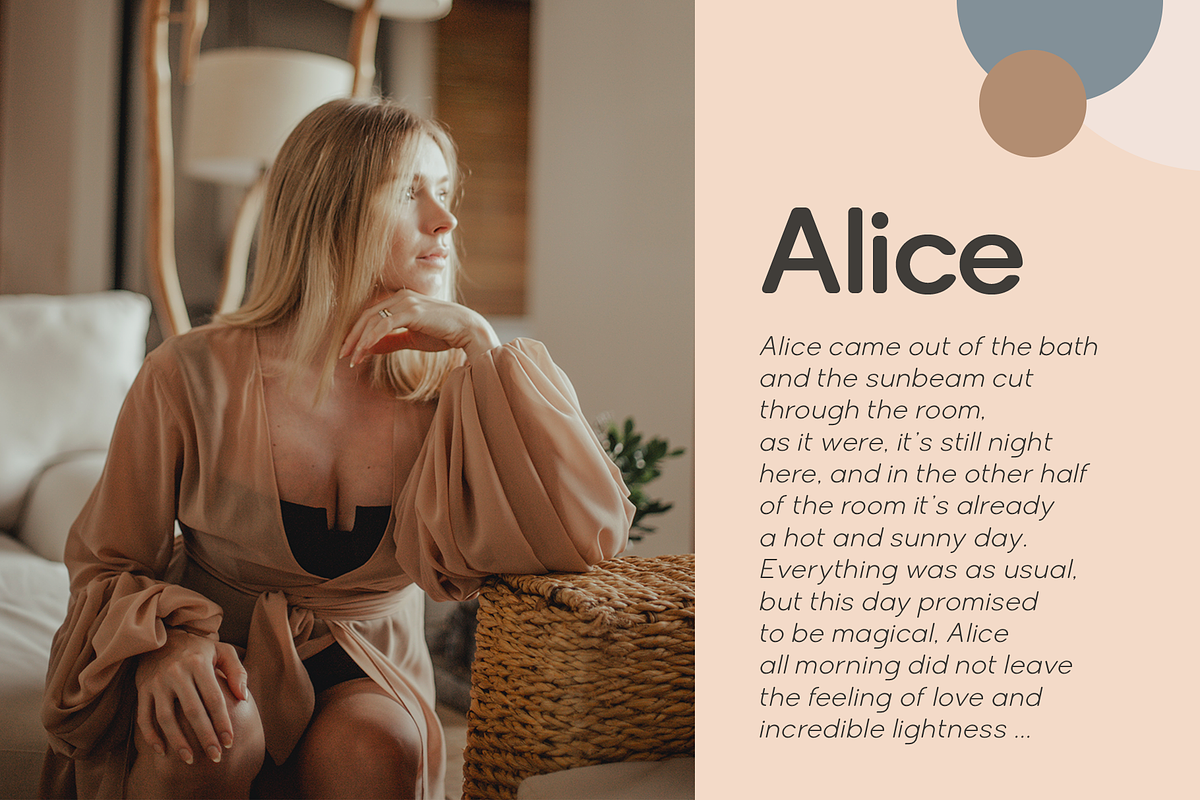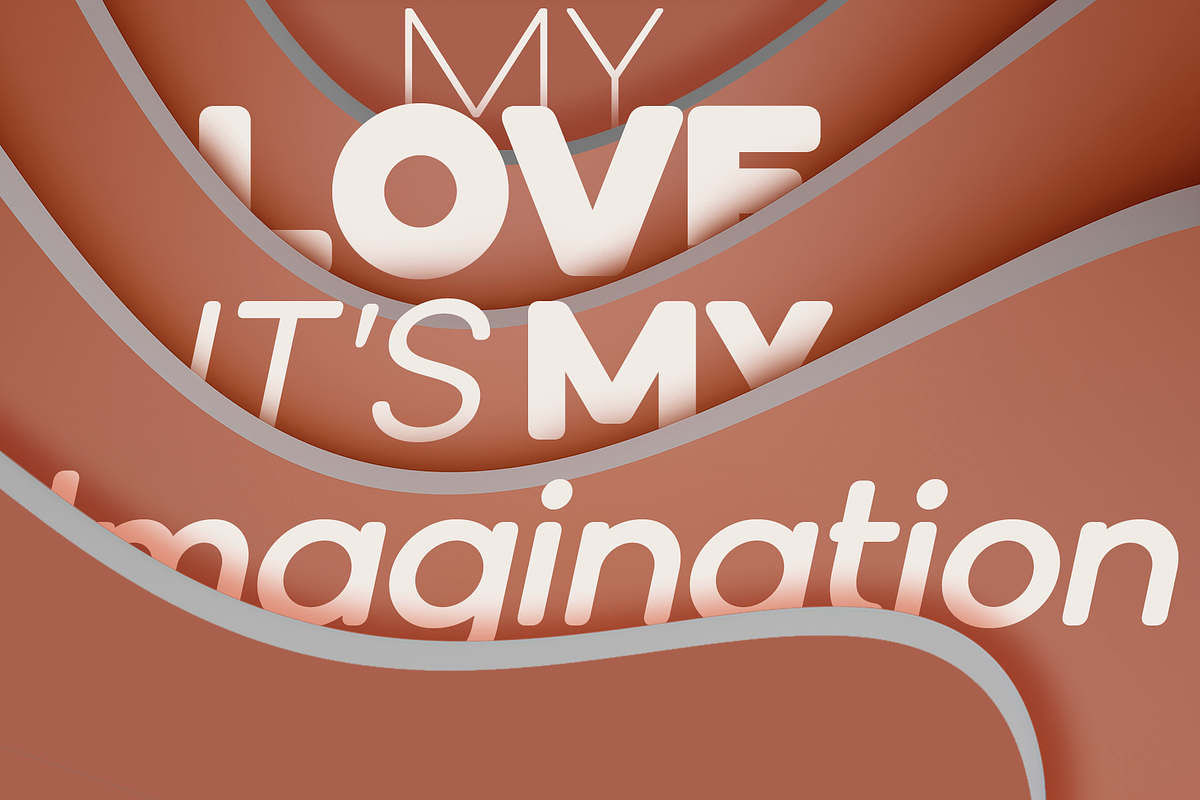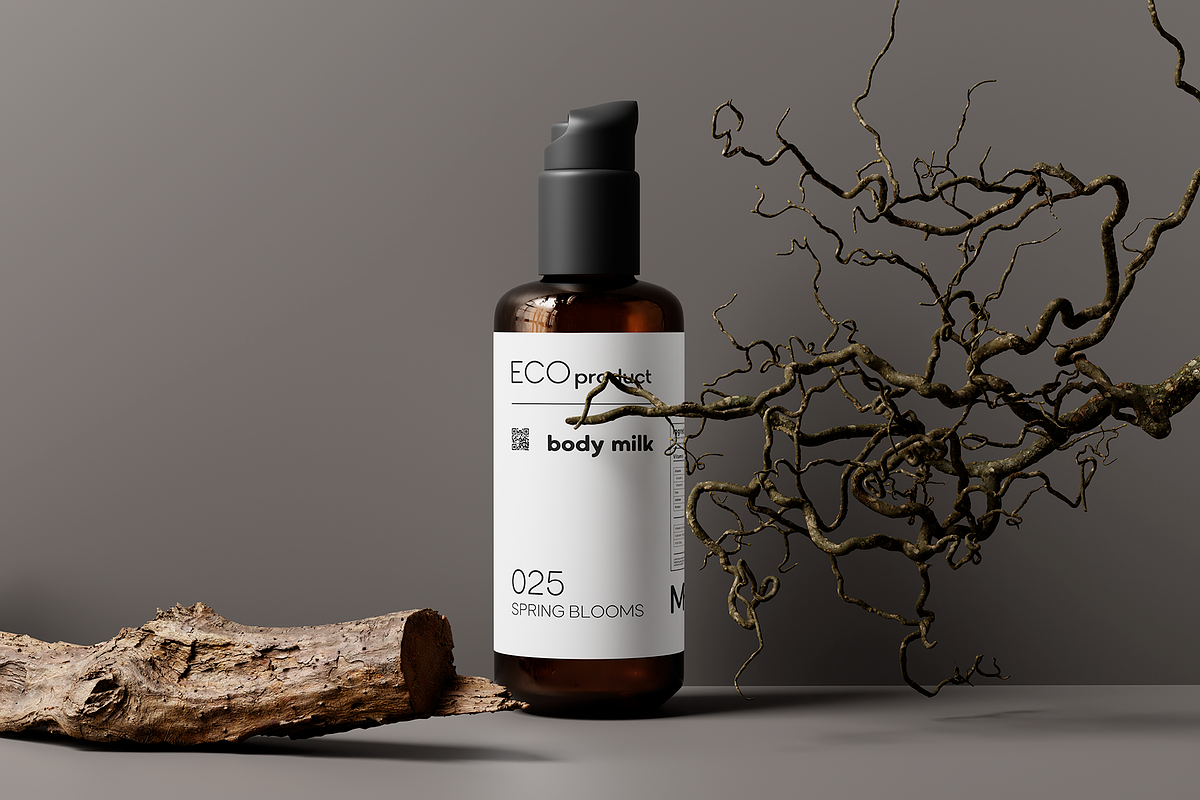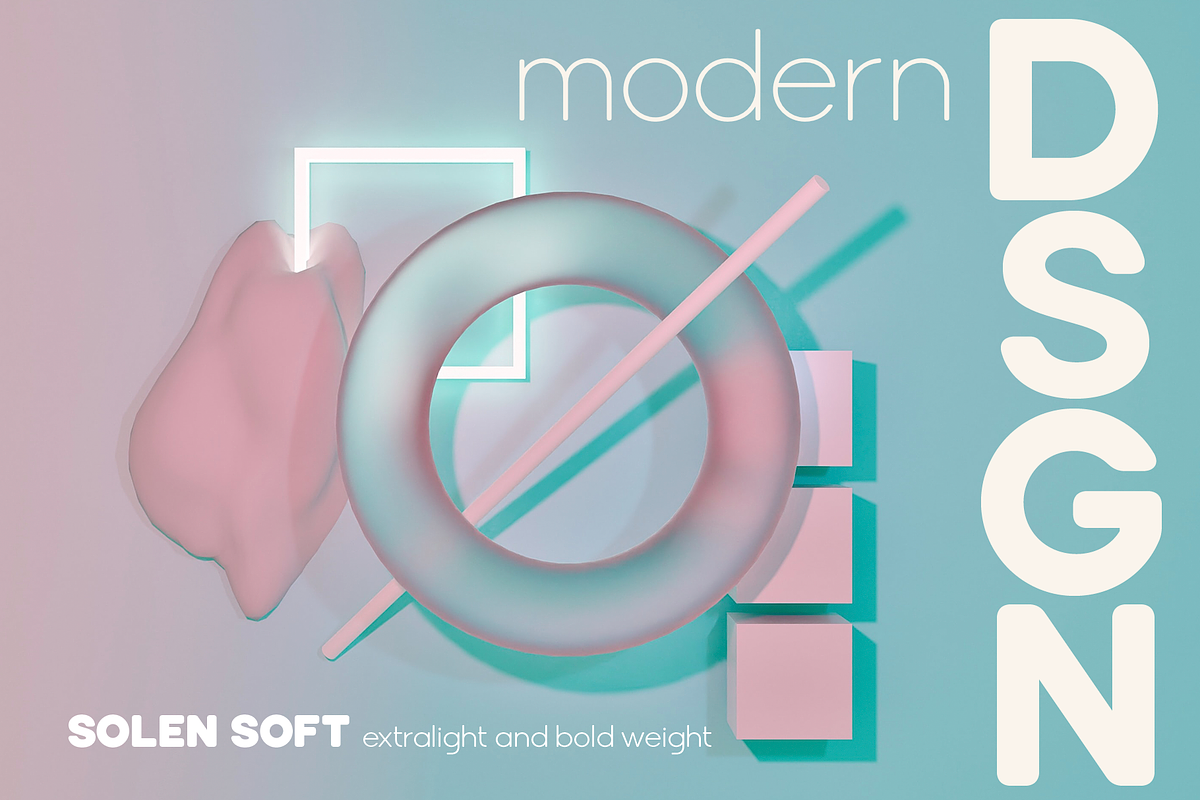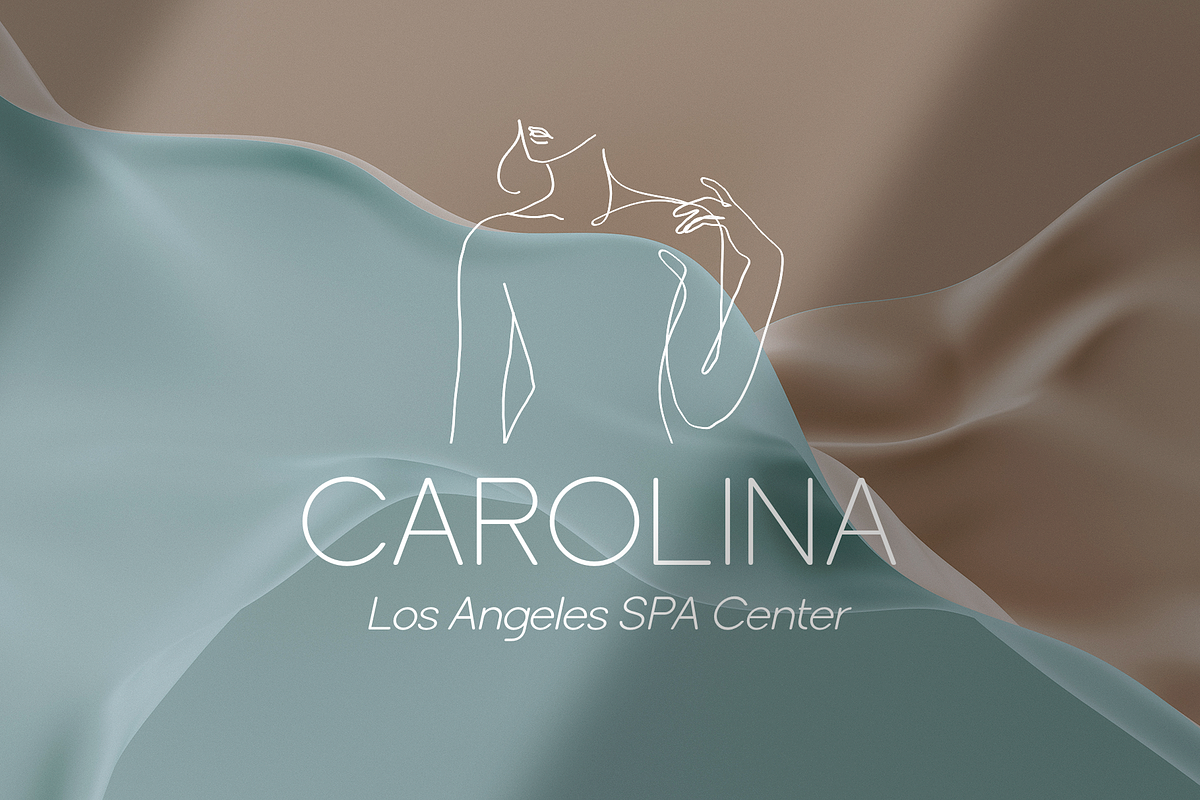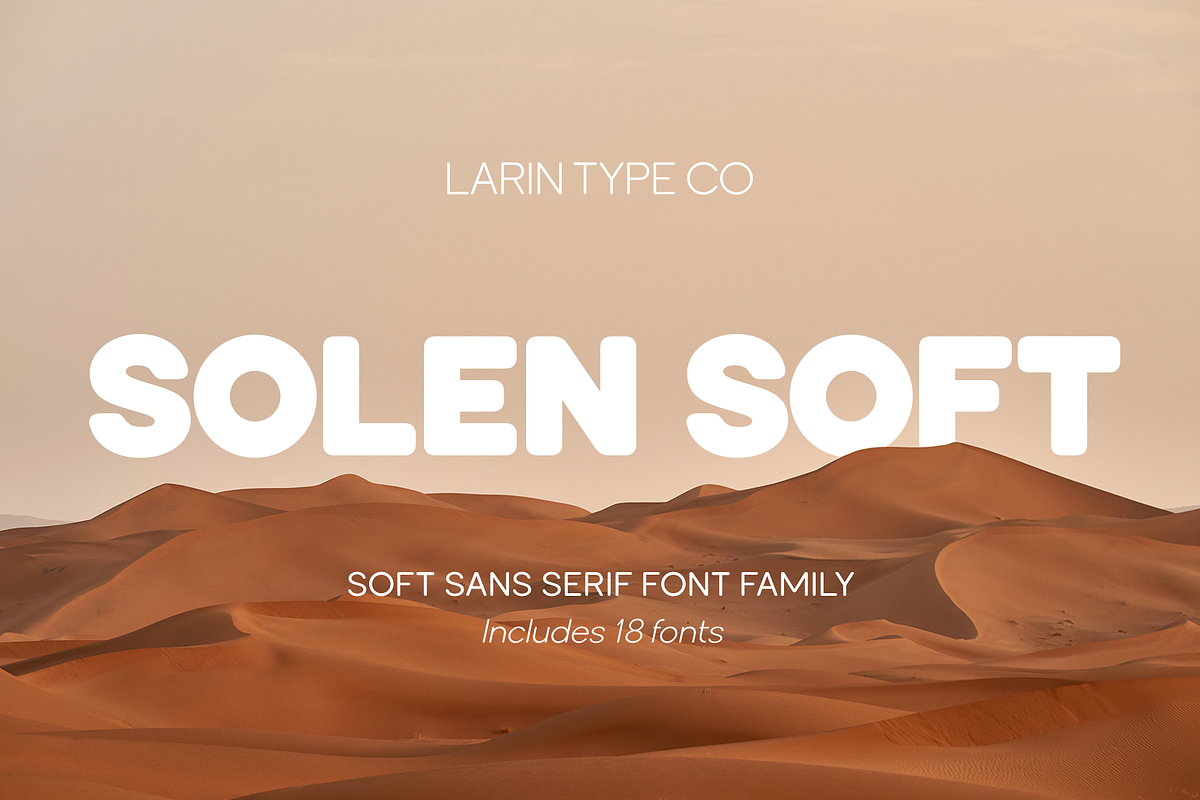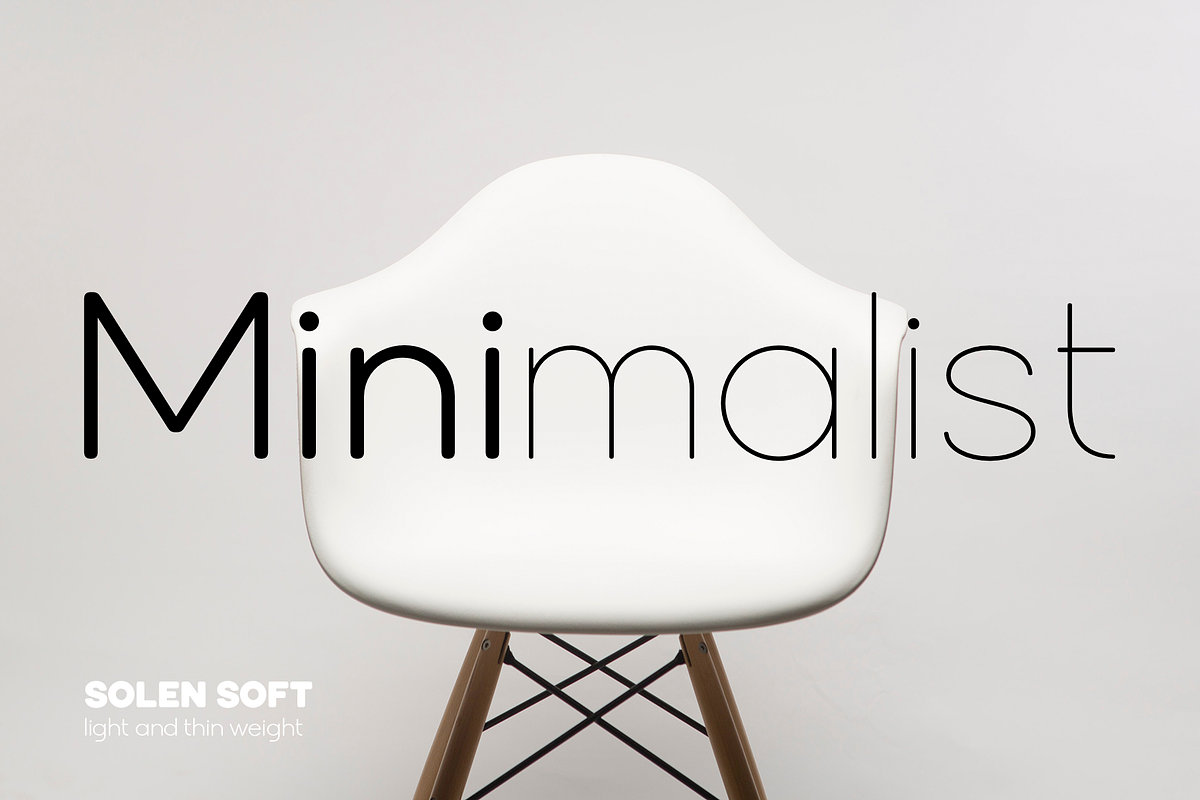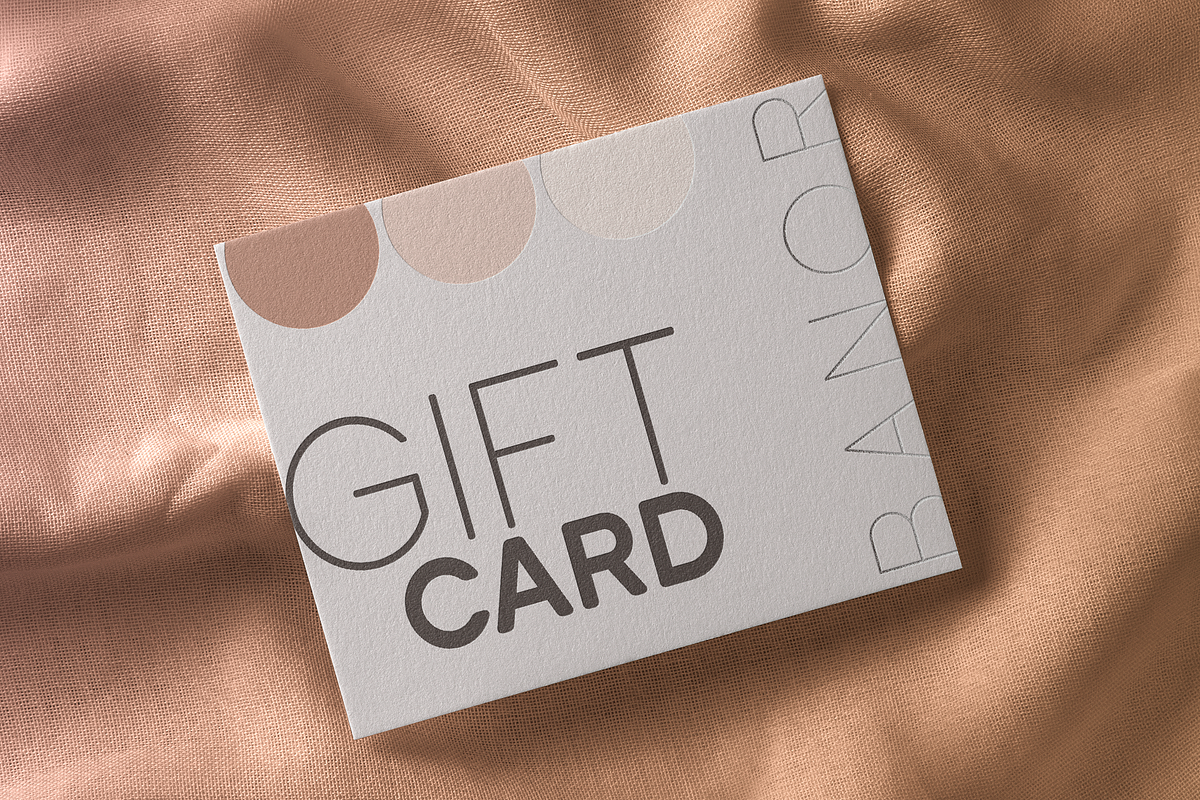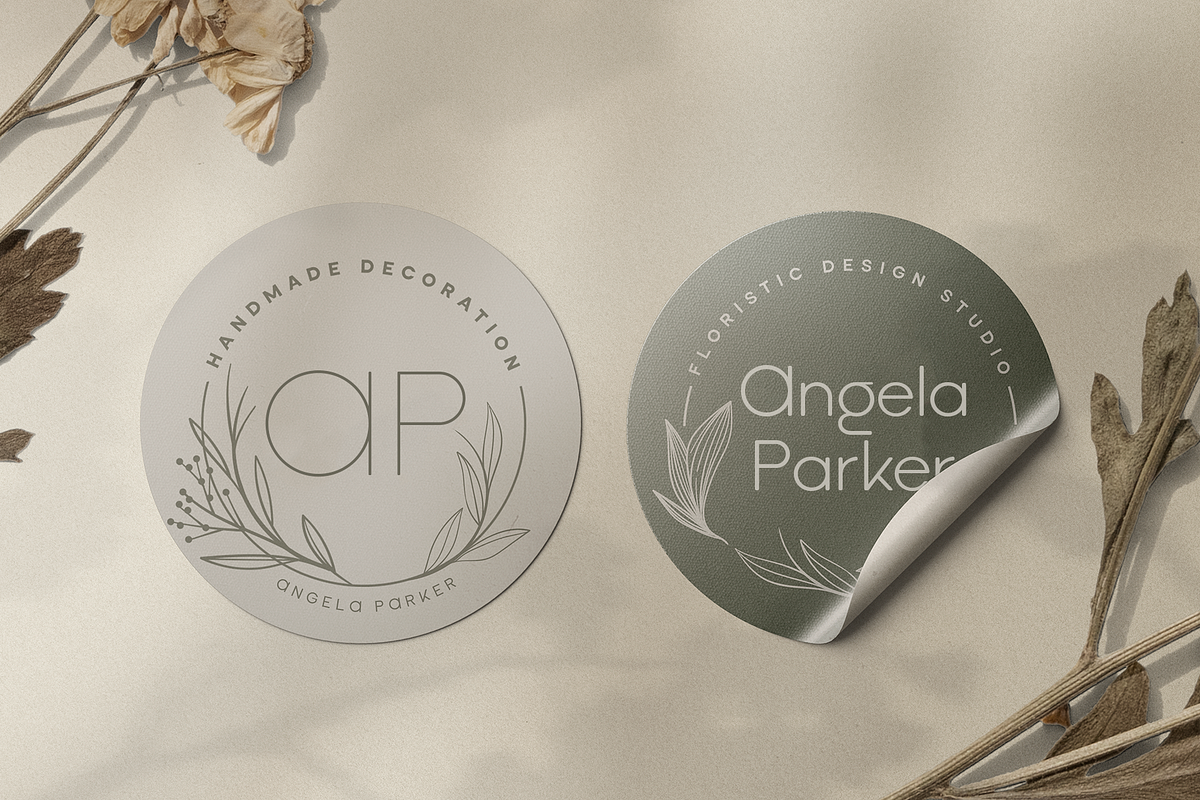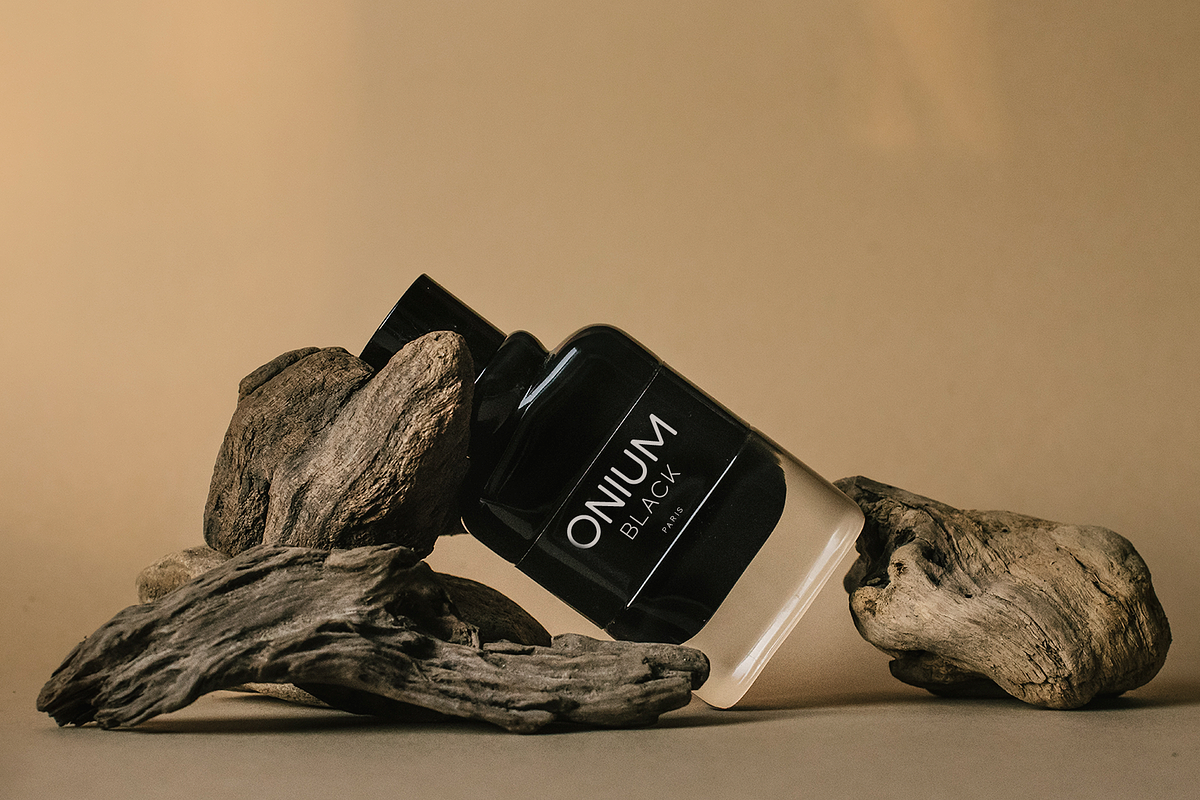
Solen Soft
Solen Soft this is a modern geometric sans-serif font that includes nine weights from thin to black and nine weights in Italic style.
This multi-purpose font captures a huge range for the design and creation of your project.
Solen family will perfectly cope with a variety of tasks and he will always look stylish and modern. With it, you can create logos, labels, use in advertising, packaging, branding, book covers and magazines, cosmetics, banners, posters, headings, descriptions and much more. This font is easy to use has OpenType features.
Following international symbols support: ÀÁÂÃÄÅĄÇĆÈÉÊËĘÌÍÎÏÐÑŃŁÒÓÔÕÖØÙÚÛÜŚŠŸÝŹŻŽßàáâãäåçèéêëìíîïðñòóôõöøùúûüýÿąćęłńśšźżž
- Alternates for Uppercase "A, E, K, M, N, U"
- Alternates for Lowercase "a, g, k, t, y"